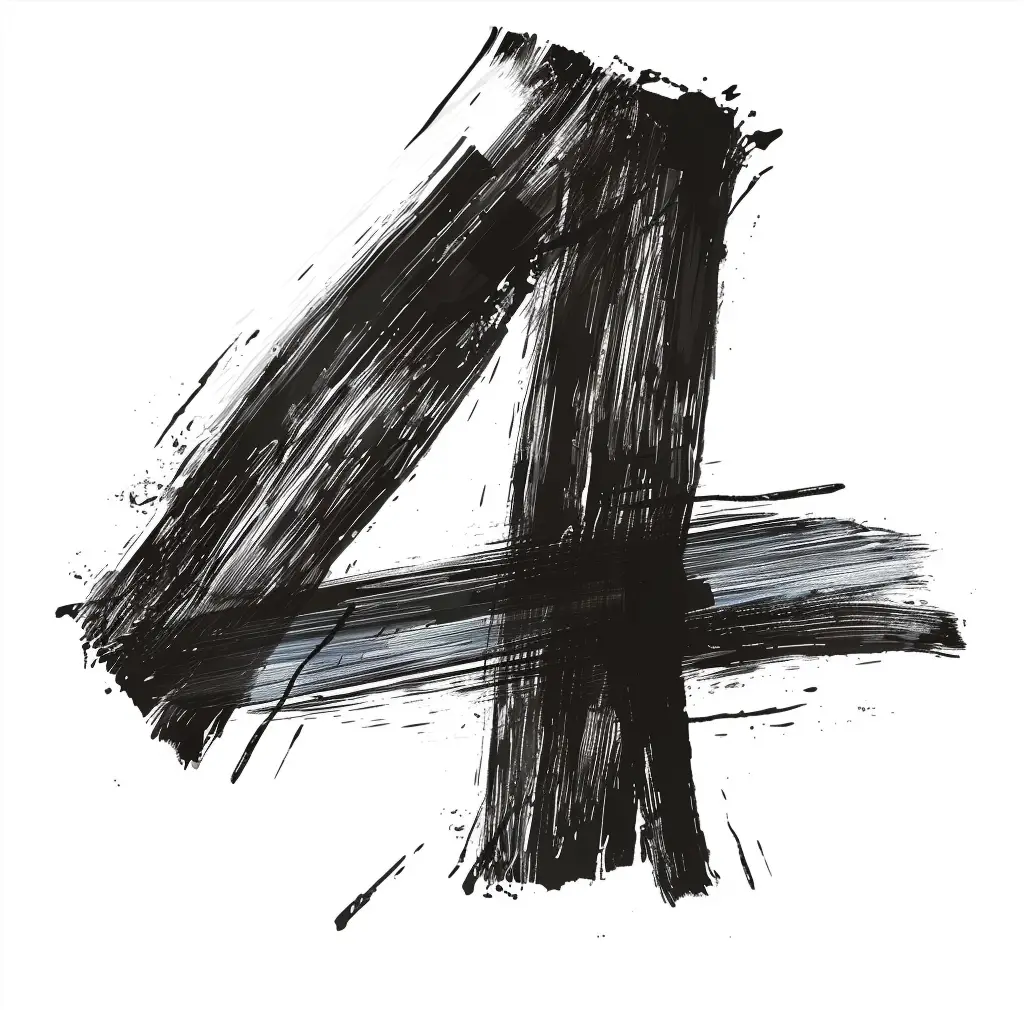
The image features a stylized, hand-painted number "4" rendered in bold, textured black brushstrokes against a plain white background. The brushwork is rough and expressive, with visible strokes, splatters, and varying line thickness, giving it a dynamic, artistic feel. The stark contrast between the black ink and white backdrop emphasizes the number’s form and the raw, painterly style.